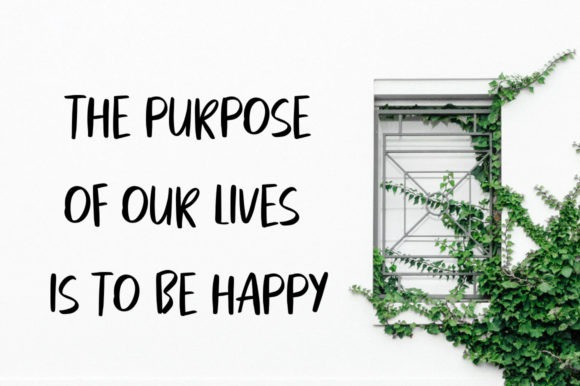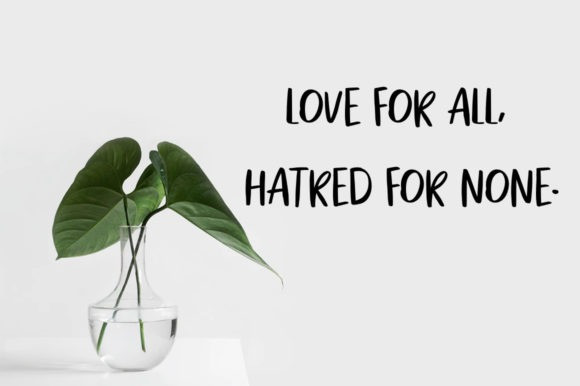
Wild Girl Decorative Font
Wild Girl is a superb decorative font, featuring a modern touch. It will look incredibly bold and intimidating on every poster, flyer or print that you wish to develop!